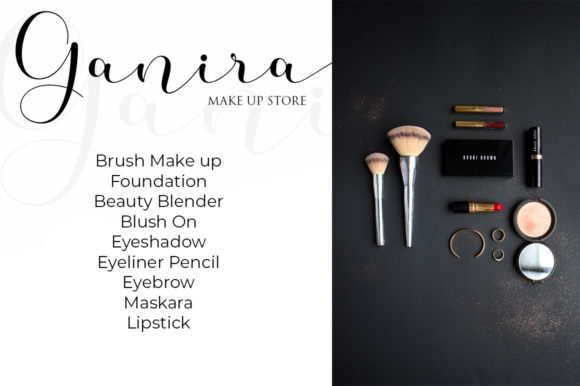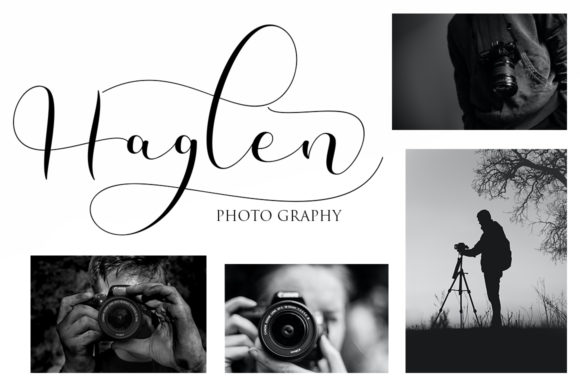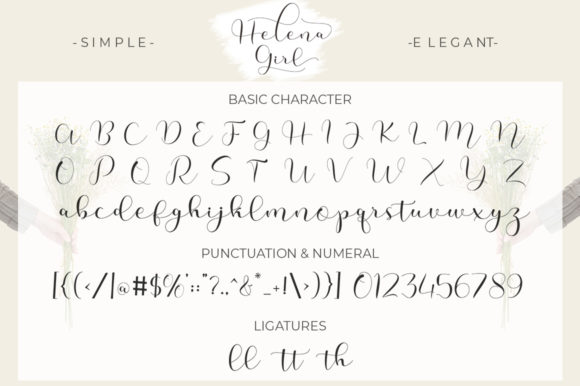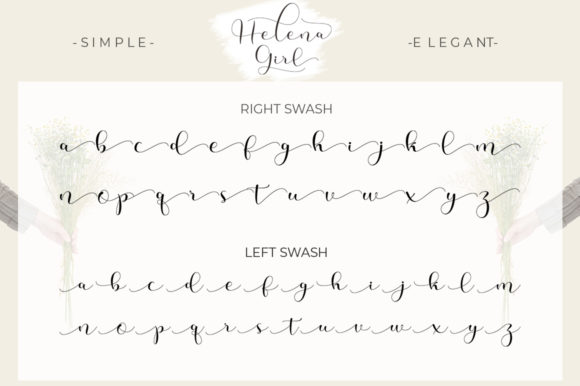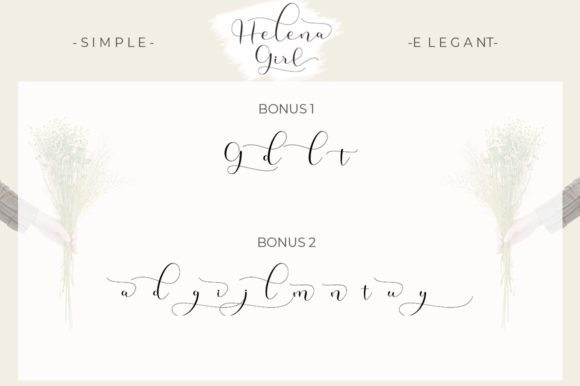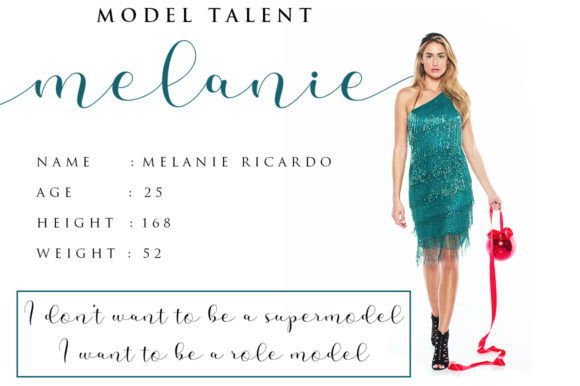
Discover the Elegance of Helena Girl Font: Elevate Your Designs with a Touch of Sophistication
In the world of typography, few fonts capture the essence of elegance and sophistication as beautifully as the Helena Girl Font. This stunning handwritten font is a favorite among designers and crafters, and for good reason. With its flowing lines, gorgeous glyphs, and varying baseline, Helena Girl is the perfect addition to any design that requires a touch of refinement and class.
The Characteristics of Helena Girl Font
So, what makes Helena Girl Font so special? For starters, its elegant and flowing design makes it a standout among other fonts. The varying baseline gives it a sense of movement and fluidity, while the smooth lines and gorgeous glyphs add to its sophistication. Additionally, the font features stunning alternates, allowing designers to add even more personality and flair to their work.
Perfect for Wedding and Greeting Card Designs
One of the most popular uses for Helena Girl Font is in wedding and greeting card designs. The font’s elegant and refined design makes it perfect for wedding invitations, thank you cards, and other stationery. It’s also a great choice for quotes, greeting cards, and other designs where a personal touch is desired. Whether you’re a designer looking to create custom stationery for clients or a crafter making your own wedding invitations, Helena Girl Font is a great choice.
Adding a Professional Touch to Business Designs
But Helena Girl Font isn’t just limited to personal projects. It’s also a great choice for business designs, such as logos, business cards, and marketing materials. The font’s sophisticated design and elegant lines make it perfect for companies looking to add a touch of refinement to their branding. Whether you’re a graphic designer working with clients or a business owner looking to create your own marketing materials, Helena Girl Font is a great option to consider.
Tips for Using Helena Girl Font
So, how can you get the most out of Helena Girl Font? Here are a few tips to keep in mind:
- Use it sparingly: While Helena Girl Font is beautiful, it can be overwhelming if used too much. Use it as an accent font to add a touch of elegance to your designs.
- Pair it with a simple font: Helena Girl Font is a statement font, so pair it with a simple font to create contrast and make it stand out.
- Experiment with alternates: The font’s stunning alternates are a great way to add personality and flair to your designs. Experiment with different alternates to find the one that works best for your project.
In conclusion, Helena Girl Font is a beautiful and elegant font that’s perfect for designers and crafters looking to add a touch of sophistication to their work. With its flowing lines, gorgeous glyphs, and varying baseline, it’s a great choice for wedding and greeting card designs, business branding, and more. Whether you’re a seasoned designer or just starting out, Helena Girl Font is definitely worth checking out.
- What type of font is Helena Girl Font?
- What is Helena Girl Font best used for?
Helena Girl Font is a handwritten font with a elegant and flowing design.
Helena Girl Font is best used for designs that require a touch of elegance and sophistication, such as wedding invitations, greeting cards, and business branding.